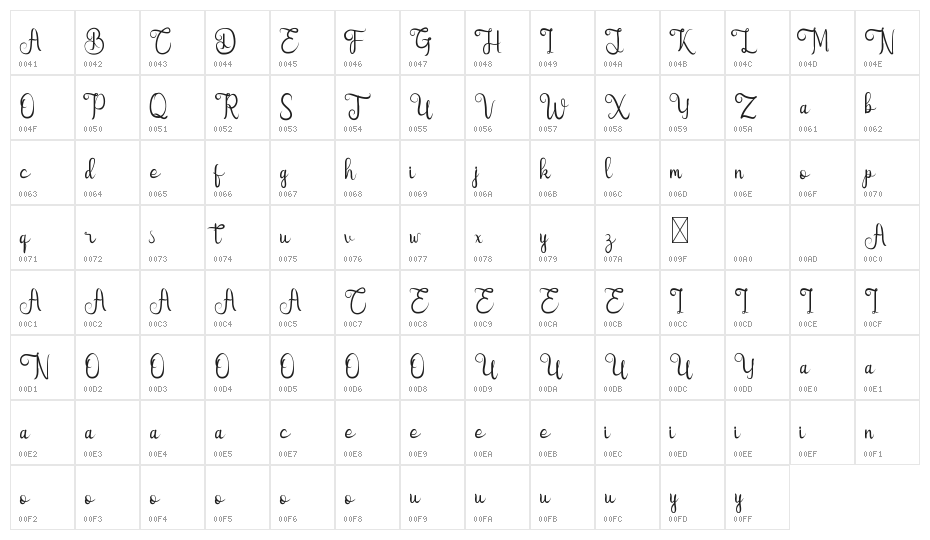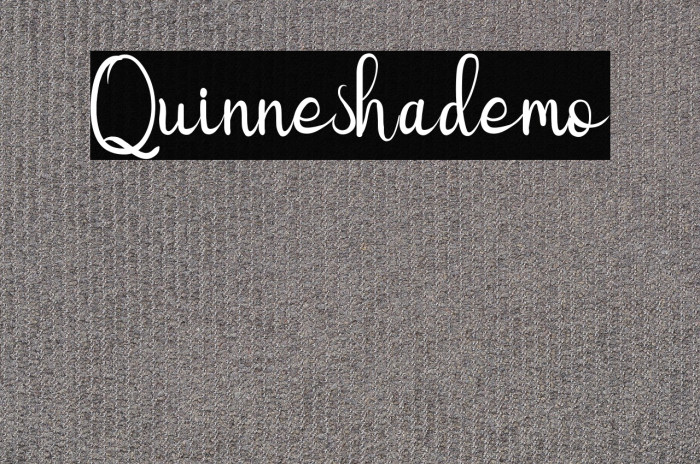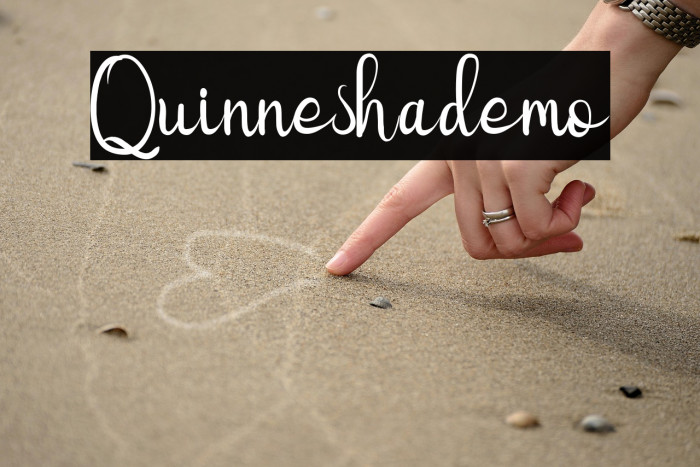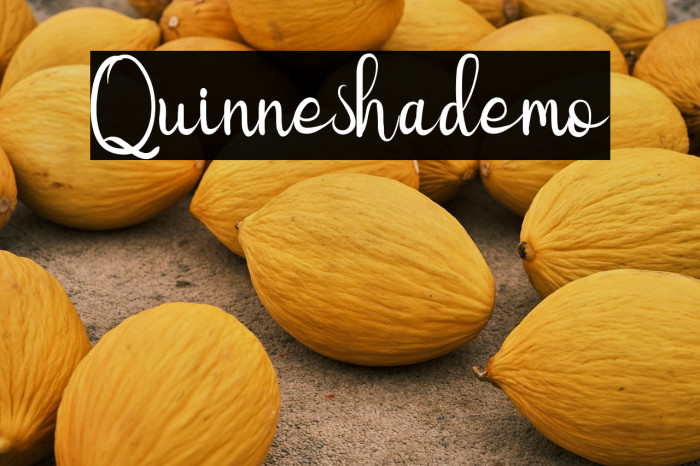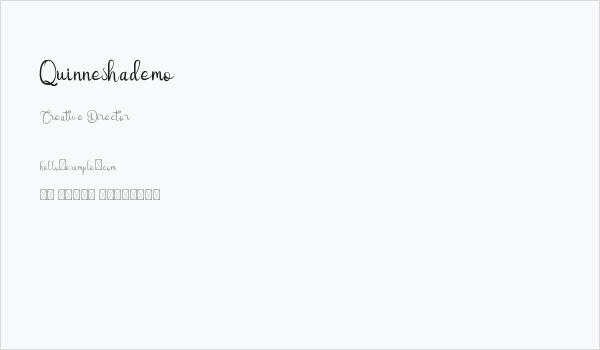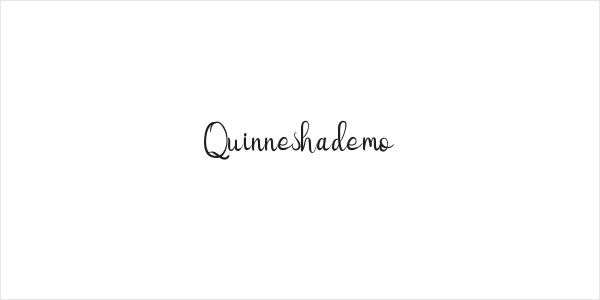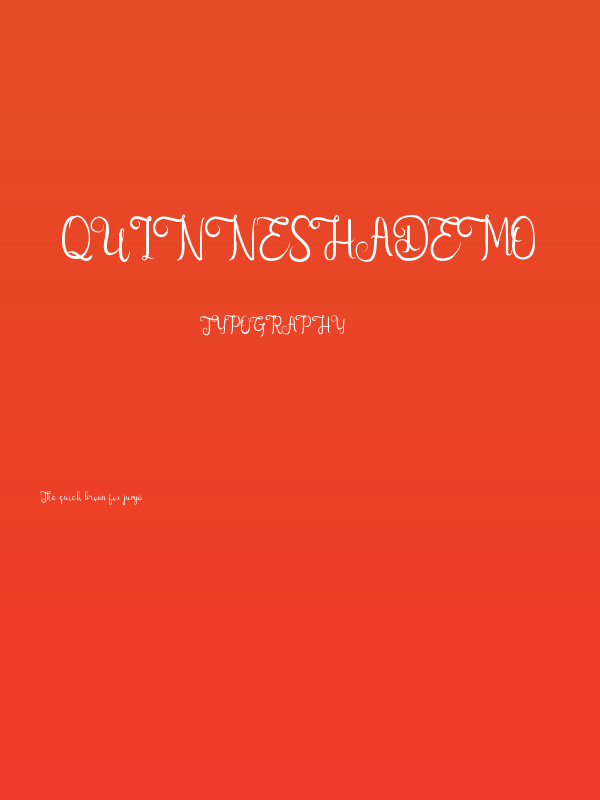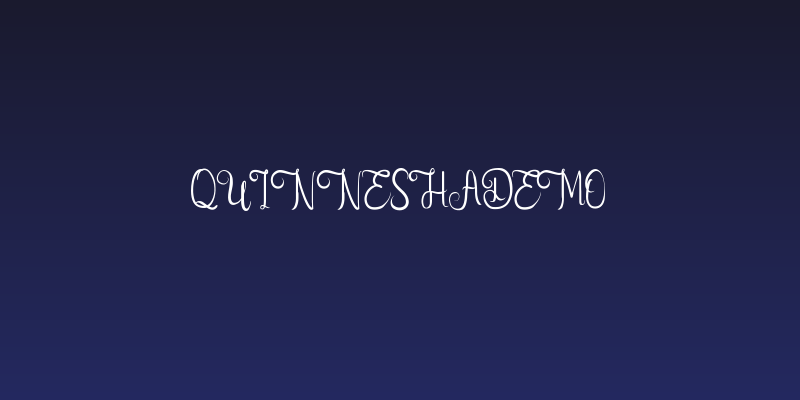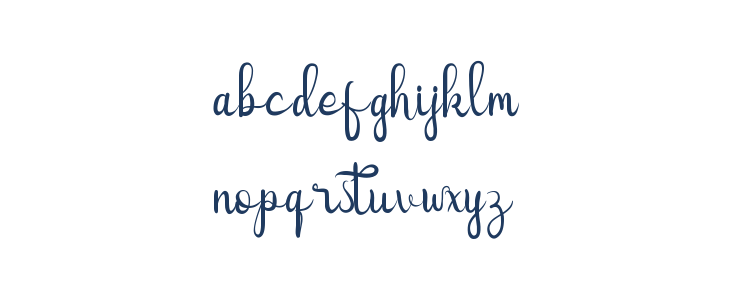
Quinneshademo Font
Quinneshademo Description
This font features an elegant and decorative script style with intricate loops and flourishes. The uppercase letters are characterized by their elaborate swirls, giving them a whimsical and artistic appearance. The lowercase letters maintain a more straightforward cursive style, yet still incorporate subtle embellishments that enhance their charm. The numbers and special characters are designed to match the overall aesthetic, ensuring a cohesive look across all glyphs. This font's unique style makes it suitable for creative and expressive design projects.